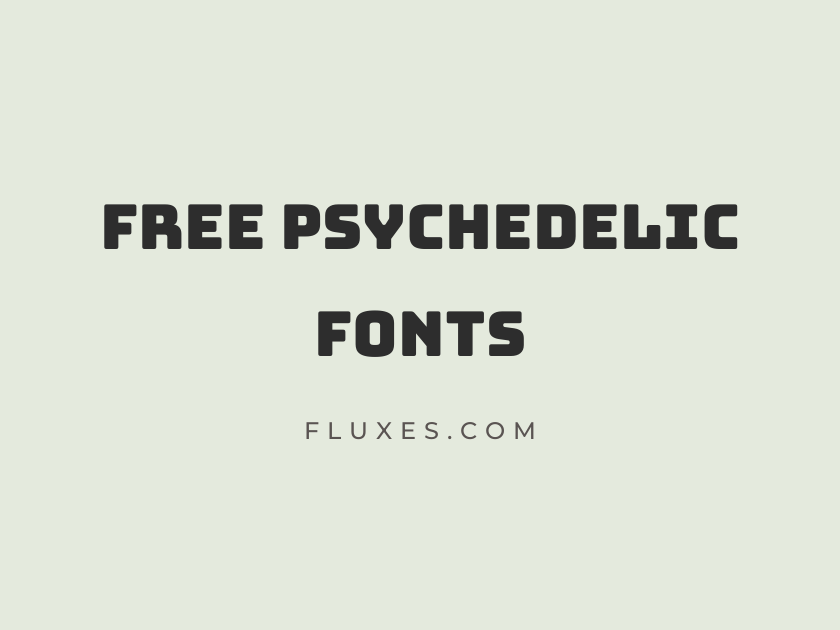
63 Best Free Psychedelic Fonts
Psychedelic design draws on a specific moment: 1960s and ’70s concert posters, liquid light shows, underground comix, and hand-lettered type that seems to melt, bubble, or breathe. Recreating that mood on the web without a licensed display face means leaning on Google Fonts, where a surprising number of families capture the groovy, hallucinatory energy of Haight-Ashbury poster art, tie-dye graphics, and vintage funk branding.
The best free psychedelic fonts share a few traits: rounded or bulbous letterforms, exaggerated curves, hand-drawn irregularity, or a deliberately distorted, glitched, or textured structure. Some are built for a festival flyer or a record sleeve, others suit a retro diner menu or a headshop logo, and a few work best as a single accent word rather than body copy.
1. Bungee
Built originally for street signage, Bungee’s thick, blocky letterforms have the confident stomp of a 1970s marquee. It layers beautifully with its own companion styles for that halftone, multi-plate poster look.
2. Bungee Shade
Stack this behind regular Bungee and you get instant dimensional depth, the kind of retro 3D lettering that shows up on vintage arcade signs and roller-rink flyers.
3. Bungee Inline
The hollow, double-stroked structure here reads like hand-painted sign lettering from a boardwalk carnival. It holds up at large sizes far better than in a paragraph of text.
4. Bungee Outline
A lighter-footed sibling of the Bungee family, useful when you want the same bold geometry without as much visual weight competing against a busy, colorful background.
5. Bungee Spice
This is the family’s wild card: a color font with a built-in gradient that shifts across the letterforms on its own. Nothing says psychedelic quite like type that already looks tie-dyed before you touch it.
6. Monoton
Few free fonts nail neon-sign glamour like Monoton, whose multiline construction mimics the glow of bent glass tubing. It belongs on album art, marquee headers, or anywhere a single glowing word needs to do all the talking.
7. Fascinate
Chunky, rounded, and just a little bit alien, Fascinate has the bubble-lettered charm of a 1970s van mural. Keep it big; the tight counters clog up fast at small sizes.
8. Fascinate Inline
The inline groove running through each letter gives this variant a hand-carved, psychedelic-poster texture that plain Fascinate doesn’t have.
9. Lobster
Lobster’s looping script leans more mid-century soda fountain than acid rock, but its warm, bulbous curves pair surprisingly well as a friendly accent alongside heavier groovy display type.
10. Lobster Two
A slightly more refined, better-balanced cut of the original, useful when the swirl of Lobster is right but the spacing needs to behave in longer headlines.
11. Boogaloo
The name says it all. Boogaloo’s chubby, wobbling curves feel like they were lettered with a fat felt-tip marker, making it a natural for anything referencing funk, soul, or dance-hall posters.
12. Bangers
Borrowed straight from the world of underground comix, Bangers brings the exaggerated, ink-blotted energy of Zap Comix-style lettering. It’s a strong choice for anything with a Robert Crumb or pop-art comic influence.
13. Fredoka
Rounded and cheerful, Fredoka softens the psychedelic mood into something more playful and modern, closer to a festival app icon than a vintage gig poster.
14. Modak
Originally cut for Devanagari display type, Modak’s bulging, balloon-like Latin letterforms have an inflated, trippy roundness that fits right into a bubble-lettered psychedelic palette.
15. Luckiest Guy
This is cartoon-poster lettering at its most exuberant, thick, bouncy, and built for shouting a single word across a flyer. Underground comic covers and skate-adjacent psychedelic art both lean on shapes like this.
16. Titan One
Rounded, inflated, and outlined for extra punch, Titan One reads like it was airbrushed onto a van in 1974. Use it for headlines only; the letterforms are far too heavy for anything longer.
17. Bowlby One
Extremely bold and extremely round, Bowlby One has the squashed, candy-shop chunkiness that suits psychedelic branding aimed at a younger, playful audience.
If a design needs color as well as texture, Bungee Spice or any of the gradient-friendly Rubik variants can do a lot of the psychedelic heavy lifting without additional design work.
Between bubble-lettered display faces, liquid drip textures, op-art fills, and a handful of ornamental Victorian revivals, there’s enough free, genuinely fitting type here to build a full psychedelic identity, from festival flyer to record sleeve to headshop sign, without ever opening a paid font library.